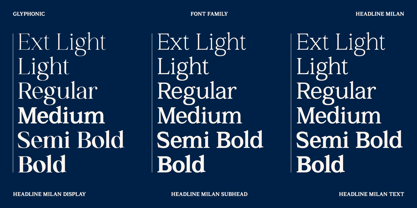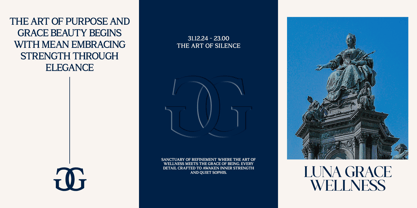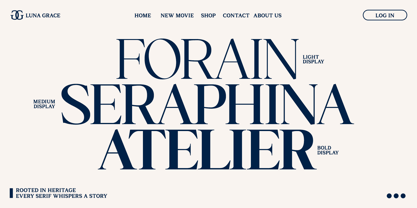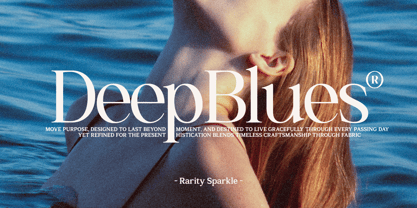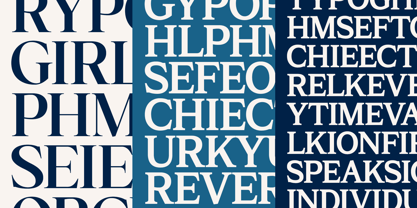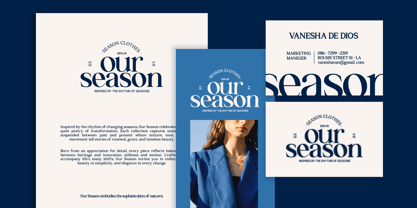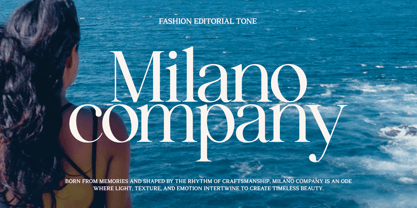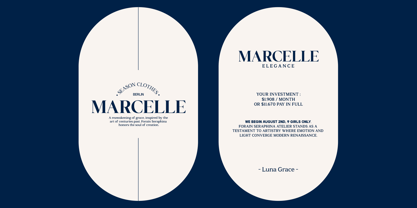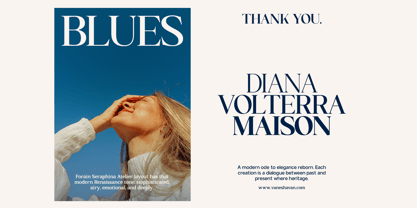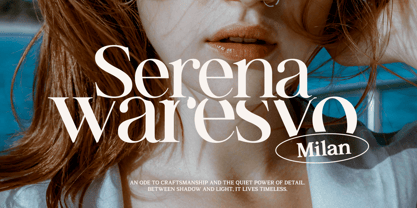
GC Milan Headline
The GC Milan Headline Font Family was designed by Muhammad Hafiizh Solana and published by Onyx Studio. GC Milan Headline contains 18 styles and family package options. More about this family
GC Milan Headline – Classy Serif Family is an elegant serif typeface crafted to bring a refined, high-end aesthetic to any visual project. Designed with balanced proportions, graceful serif details, and a timeless modern-classic character, this font delivers a sophisticated presence across both print and digital media. Created specifically for striking and stylish headlines, GC Milan Headline is perfect for luxury branding, fashion editorials, artistic identities, and any design that demands a touch of elegance. Each letterform blends softness with confidence, resulting in a distinctive look that elevates your visual storytelling. Whether you’re crafting bold titles, premium editorial layouts, high-end logos, or expressive posters, GC Milan Headline adds a classy and timeless charm to your typography. Features: - Uppercase & Lowercase - Numbers & Punctuation - Elegant Serif Construction - Multilingual Support (170+ Languages) Bring a refined, stylish, and sophisticated impression to your design with GC Milan Headline – Classy Serif Family.